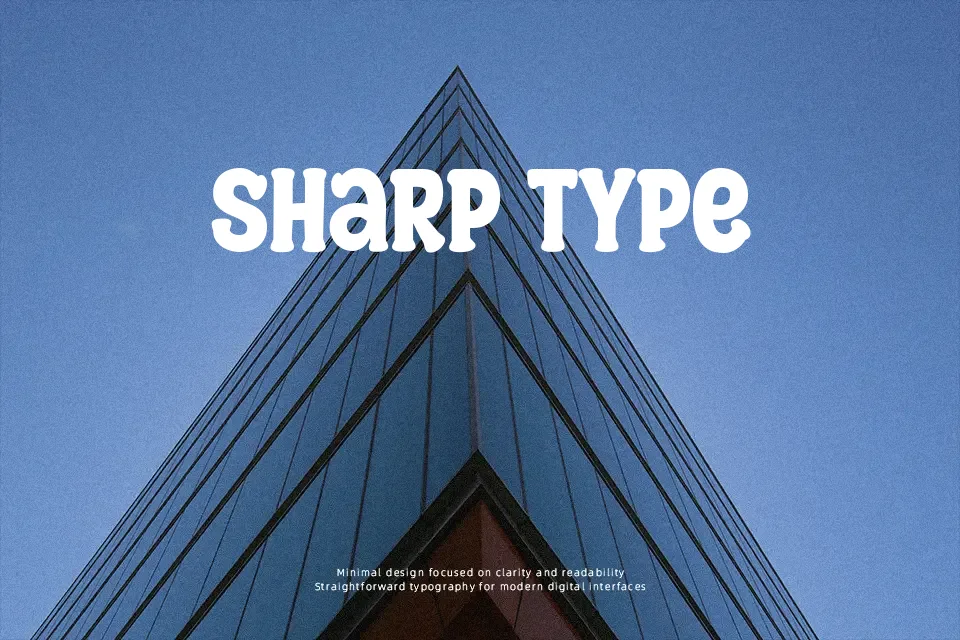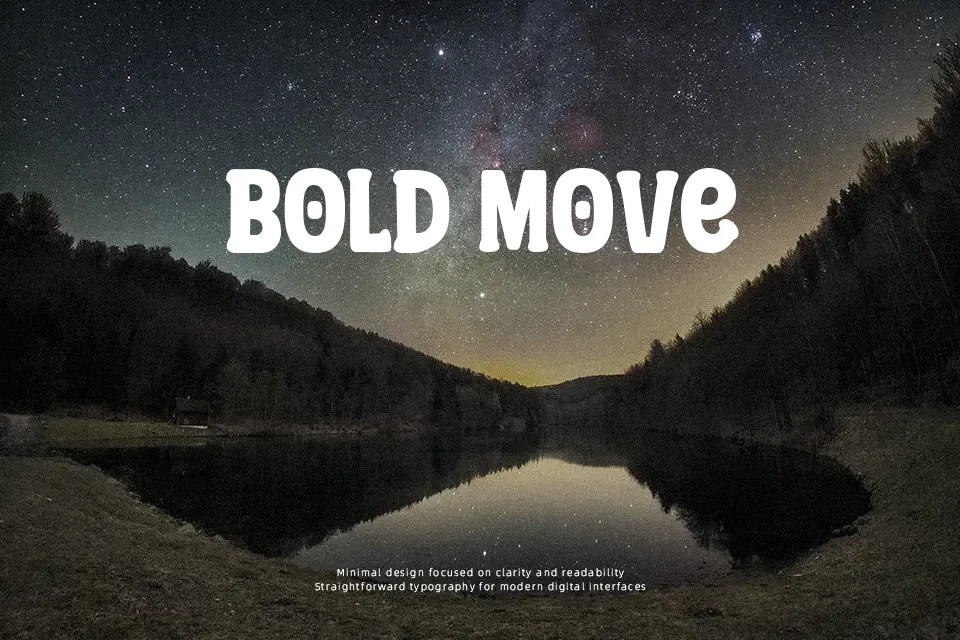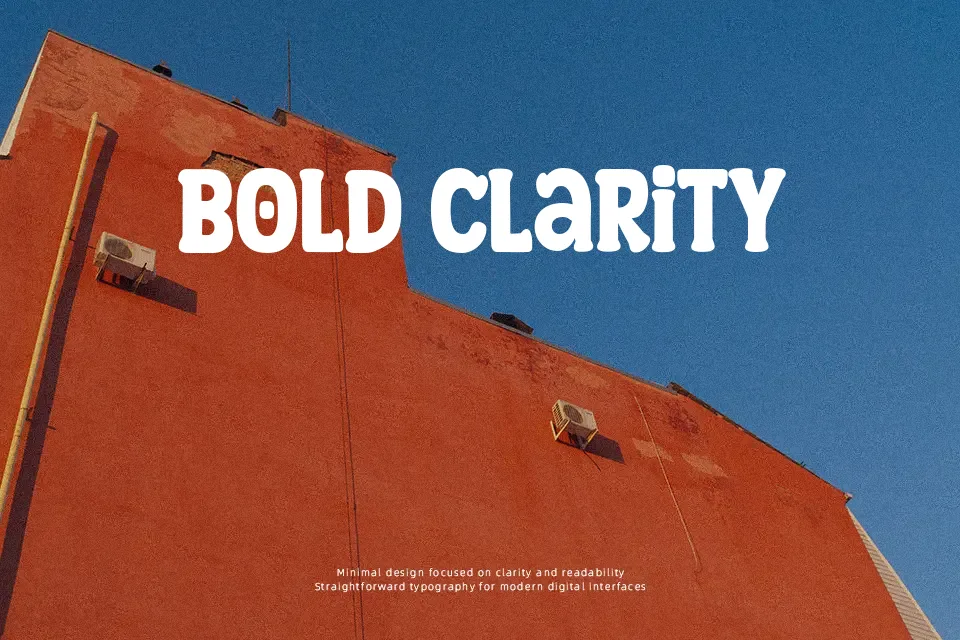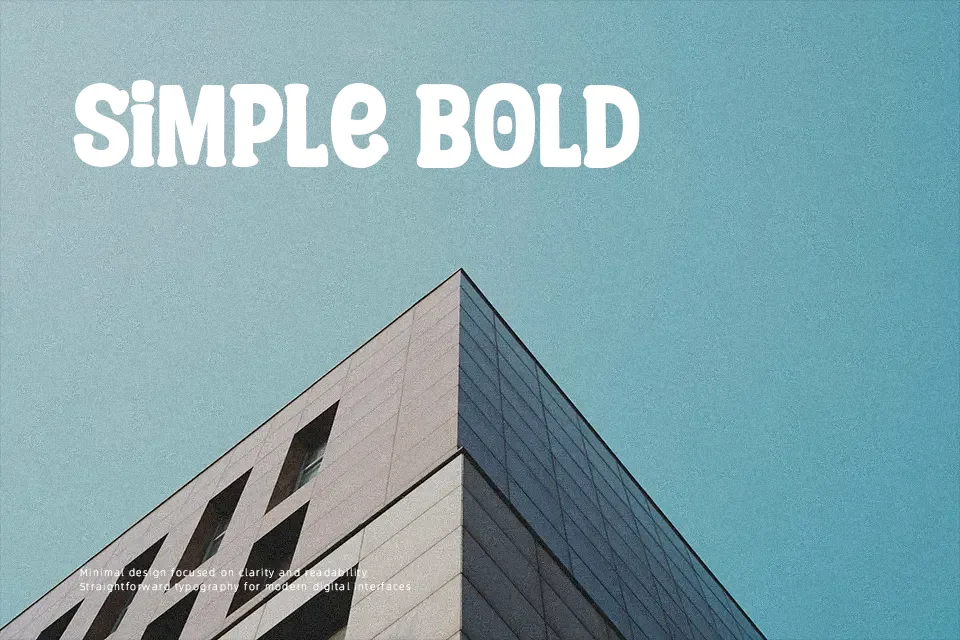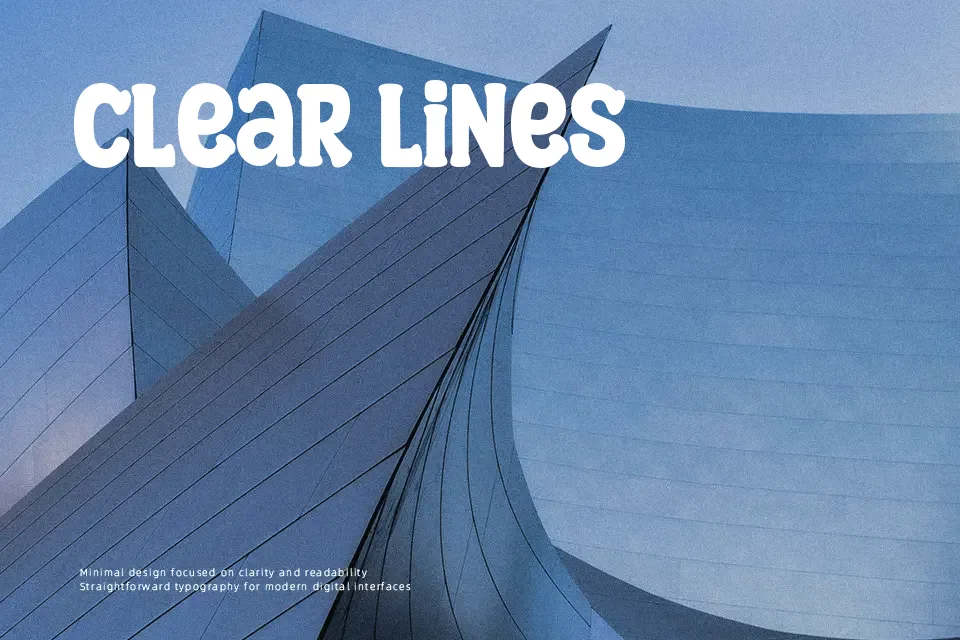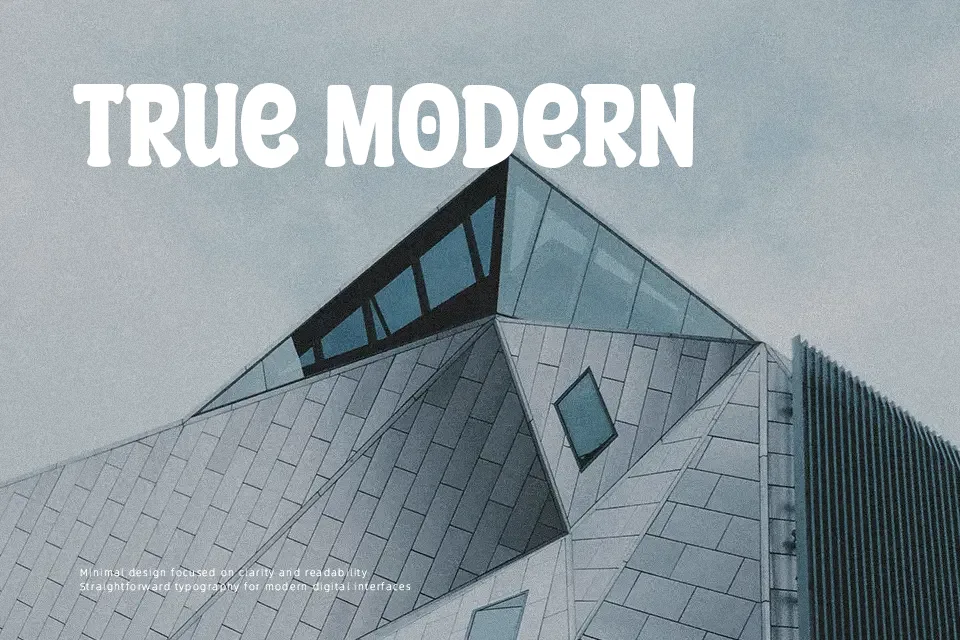
Society Members Font
Society Members Font delivers an unconventional display aesthetic defined by chunky weights, irregular contouring, and energetic character proportions. Tight letter spacing combines with heavy, soft-edged strokes to create a lively visual rhythm across headline text. The uppercase forms exhibit distinct expressive flair, while lowercase glyphs maintain consistent waistlines for balanced composition. In practical terms, the heavy stroke mass provides immediate visual impact in short headlines, but dense letter shapes and reduced counter spaces diminish legibility in extended text settings. This design proves most effective in large display environments like retro apparel and event graphics, whereas small interface labels quickly lose clarity.
Best For: retro apparel graphics, music festival posters, food packaging labels, children book covers
Not Ideal For: long body paragraphs, mobile interface labels, formal business documents, dense spreadsheet tables
Perfect for branding, headline, and kids, with a bold and cartoon style.